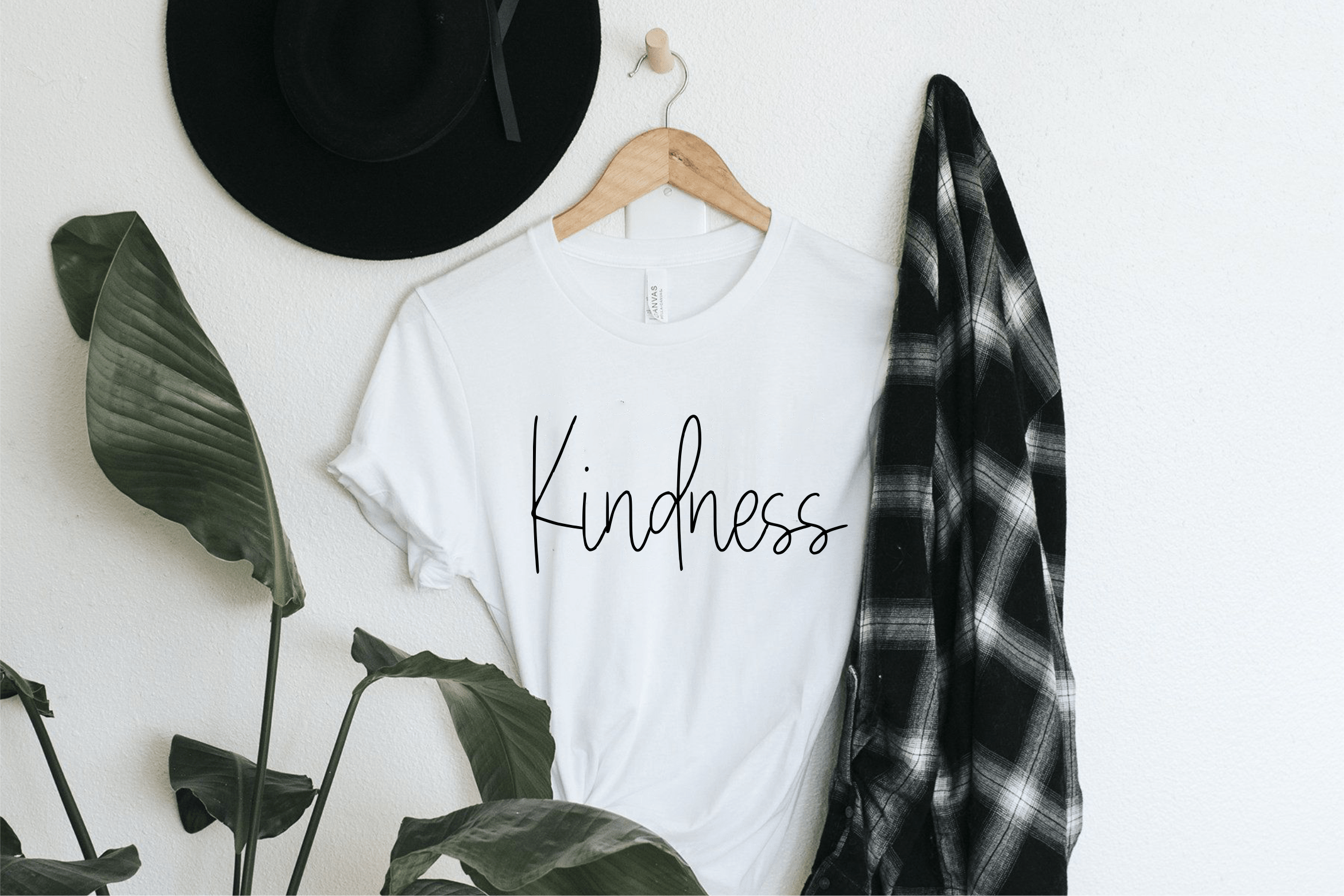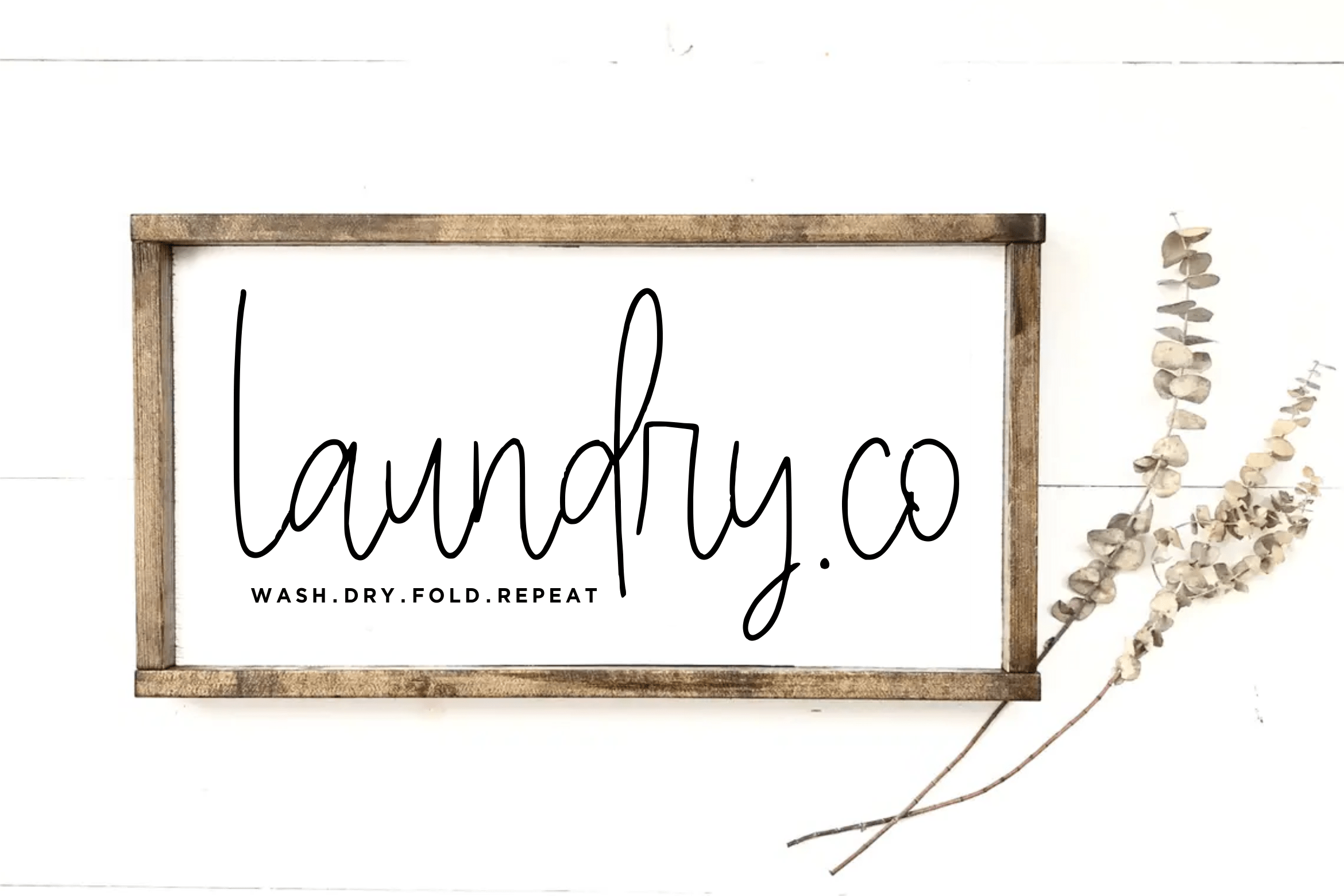
Sketchthiny Font
Sketchthiny Handwritten Font
This is a slim and subtle handwritten font that is crafted with great care for maximum results. It will add elegance and class to any of your design projects.